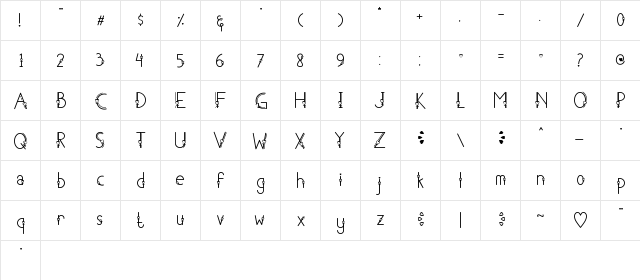
Adzkia Regular Font Preview
Adzkia Regular
Design Context for Adzkia Typeface
Adzkia is a composed and adaptable typeface that performs quietly and consistently across a wide range of design contexts.